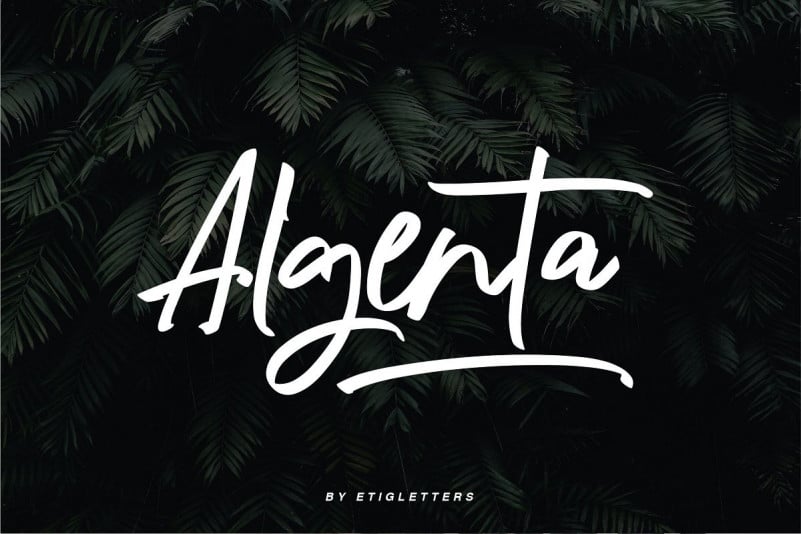
Algenta Script Font
Algenta Script Font is a casual script typeface and combination with Hand Lettering style which gives more handwriting touch and makes the font looks being customized. It’s designed and shared by etigletters. It comes in with ligatures, swashes, stylistic alternates and stylistic set. Algenta can be used for various types of design needs such as branding materials, promotional flyers, social media templates, business cards, logos, t-shirt, posters, and more.
Algenta also includes a full set of gorgeous uppercase and lowercase letters, numerals, punctuations with multilingual support, this font also suitable to be combined with sans serif that will make your design more perfect.